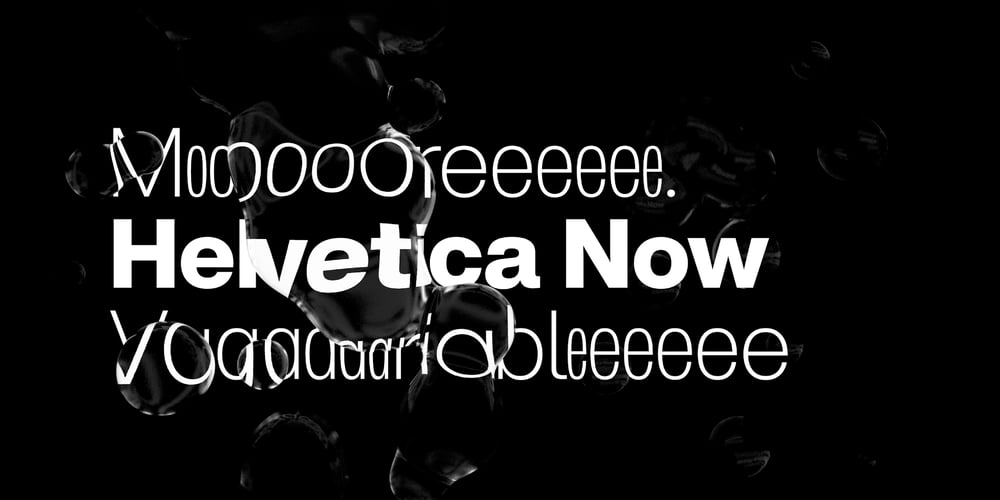
Helvetica Now Variable Font Family was designed by Max Miedinger, Charles Nix, Monotype Design Studio, Friedrich Althausen, Malou Verlomme, Jan Hendrik Weber, Emilios Theofanous and published by Monotype. Helvetica Now Variable contains 2 styles and family package options. Helvetica Now Variable Helvetica Now 2.0 builds on the groundbreaking work of 2019’s Helvetica Now release—all of the clarity, simplicity, and neutrality of classic Helvetica with everything 21st-century designers need. In this 2021 release, we introduce Helvetica Now Variable and add condensed weights to the Helvetica Now static fonts. Helvetica Now 2.0 includes 96 fonts in three distinct optical sizes (Micro, Text, and Display), now with 48 new condensed weights. The Helvetica Now Variable fonts include even more: 144 instances—48 normal, 48 condensed, and 48 compressed. Helvetica Now Variable gives you over a million new Helvetica styles in one state-of-the-art font file (over two-and-a-half million with italics!). Use it as an extension of the Helvetica Now family or make custom-blends from its weights (Hairline to ExtraBlack), optical sizes (four point to infinity), and new Compressed and Condensed widths. Create infinite shades of expression, incredible typographic animations, and ultra-refined typography. Its single font file makes it easier to use and wickedly fast. Load one file and access a million fonts—in a fraction of the size of a traditional font family. More freedom. More expression. More power. More. Helvetica. Now. Each one of the Helvetica Now static fonts has been carefully tailored to the demands of its size. The larger Display versions are drawn to show off the subtlety of Helvetica and spaced with headlines in mind, while the Text sizes focus on legibility, using robust strokes and comfortably loose spaces. Helvetica Now’s Micro designs are simplified and exaggerated to maintain the impression of Helvetica in tiny type. There’s also an extensive set of alternates, which allow designers the opportunity to experiment with and adapt Helvetica’s tone of voice. The new Condensed weights put more type into smaller spaces—for intense emphasis, sophisticated contrast, or just everyday space-fitting. Helvetica Now 2.0 is, quite simply, more: more versatility; more power; and more creative possibilities. “For more than six decades, Helvetica has been the essential typeface,” says Monotype Type Director Charles Nix. “The release of Helvetica Now insures that it will be a typographic force for decades to come.”